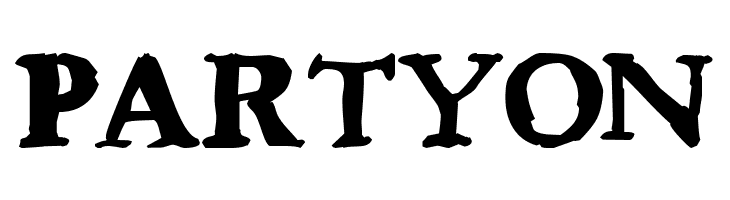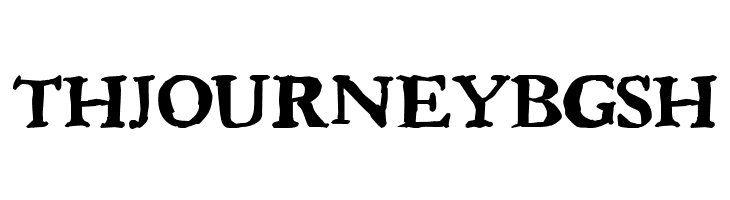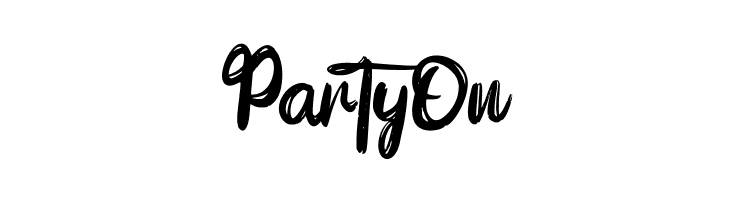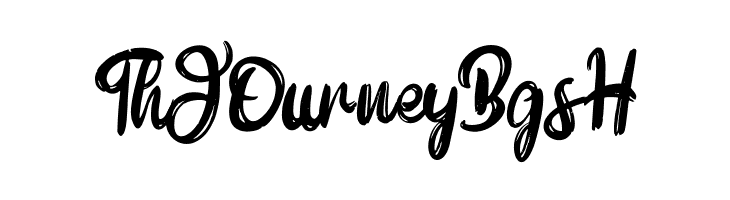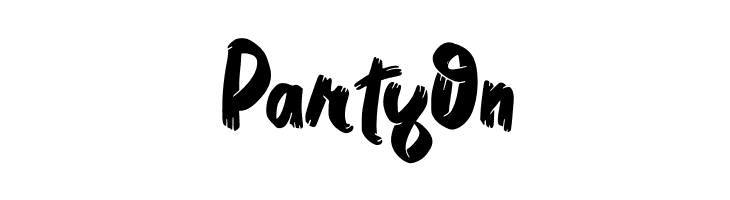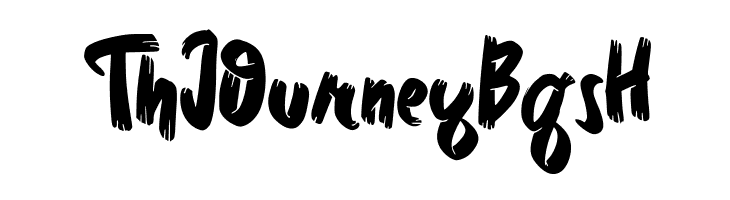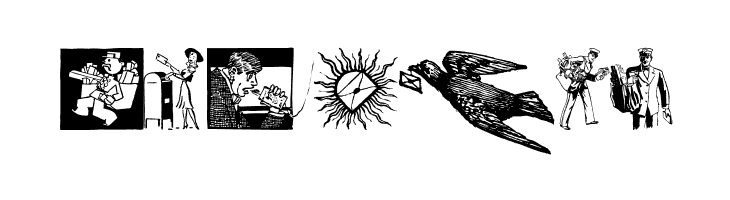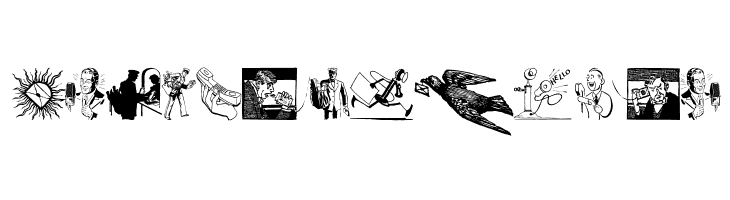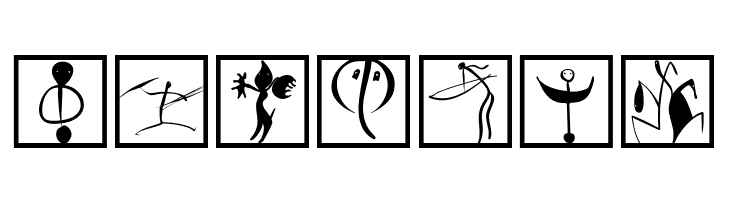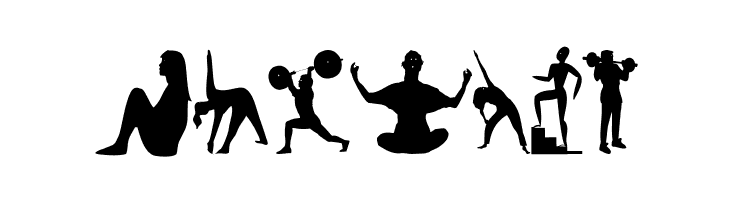
• BECROSS
• Bedbug
A bold, textured font with a vintage, handcrafted feel.
• Bedmifo FREE
A bold, brush-style font with a dynamic and artistic appearance.
• BeeBopp
A bold, angular font with sharp geometric lines and a dynamic style.
• BeesWax Normal
A bold, playful font with chunky, whimsical characters.
• BeFit
A display font made of fitness-themed human silhouettes.
• BeforeAlphabets-Night
An artistic font resembling ancient cave drawings with unique, decorative characters.
• BeforeAlphabetsGallery
Primitive pictographic symbols resembling ancient cave drawings.
• BeforeEmailAndTV
An illustrative and decorative font composed of detailed images instead of traditional characters.
• Begin FREE
A bold, expressive script font with a modern, brush-like style.